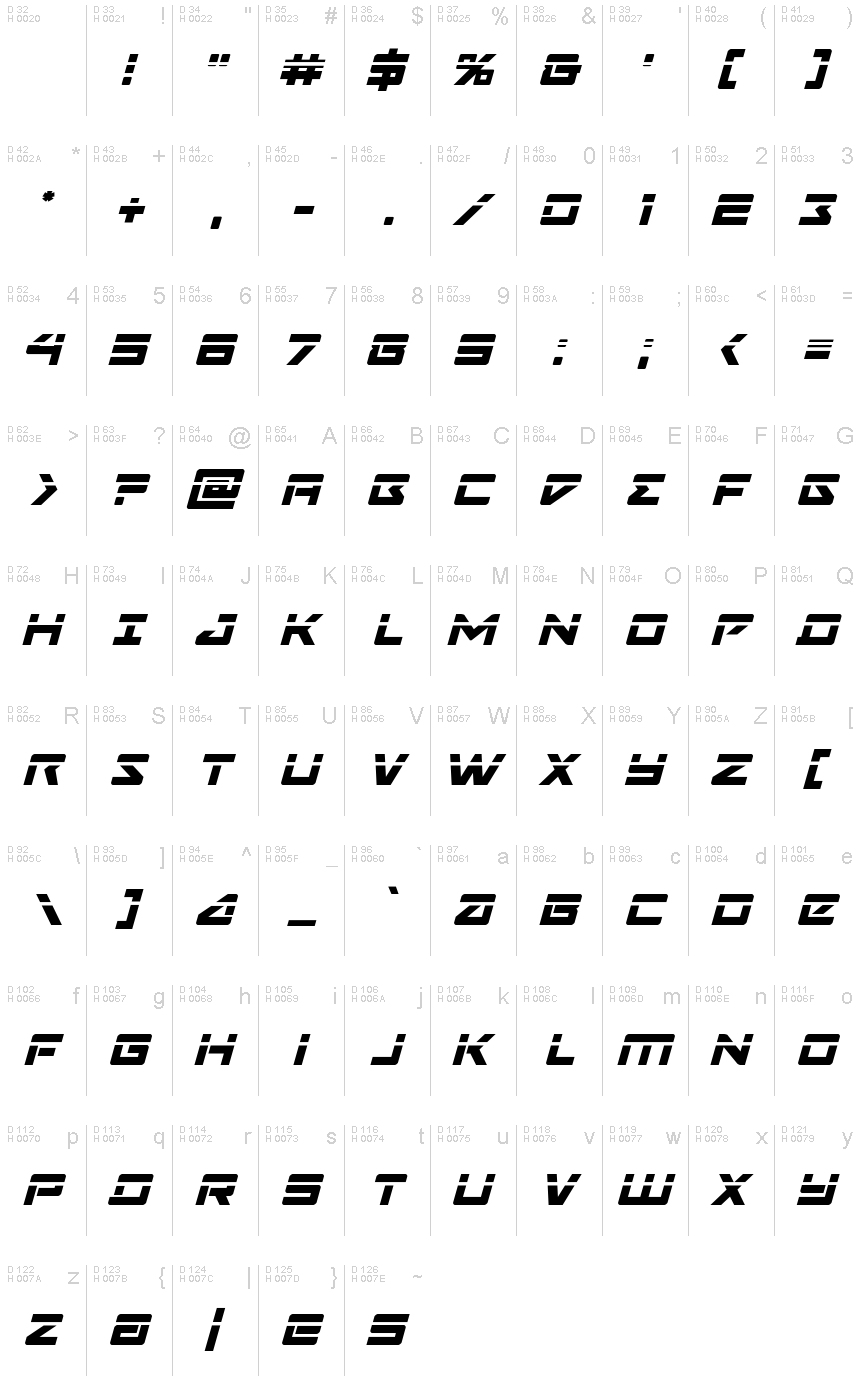
Navy Cadet Laser Italic
Navy Cadet Laser Italic is a striking and futuristic display font designed by Daniel Zadorozny. Featuring an expanded width and an eye-catching italic slant, this font exudes a sense of dynamism and technological innovation. Its distinct geometric shapes and clean lines create a bold, almost architectural aesthetic, making it well-suited for use in modern branding, packaging, and digital displays. The combination of the Navy Cadet font family's unique character and the laser-sharp italic style results in a font that commands attention and conveys a vision of the future.
This font's versatility extends beyond digital applications, as its distinctive appearance can also be effectively utilized in print media, signage, and various other design projects that require a strong, attention-grabbing typographic element. Its expanded width provides excellent legibility, ensuring that the font's impact is not diminished even at larger sizes.